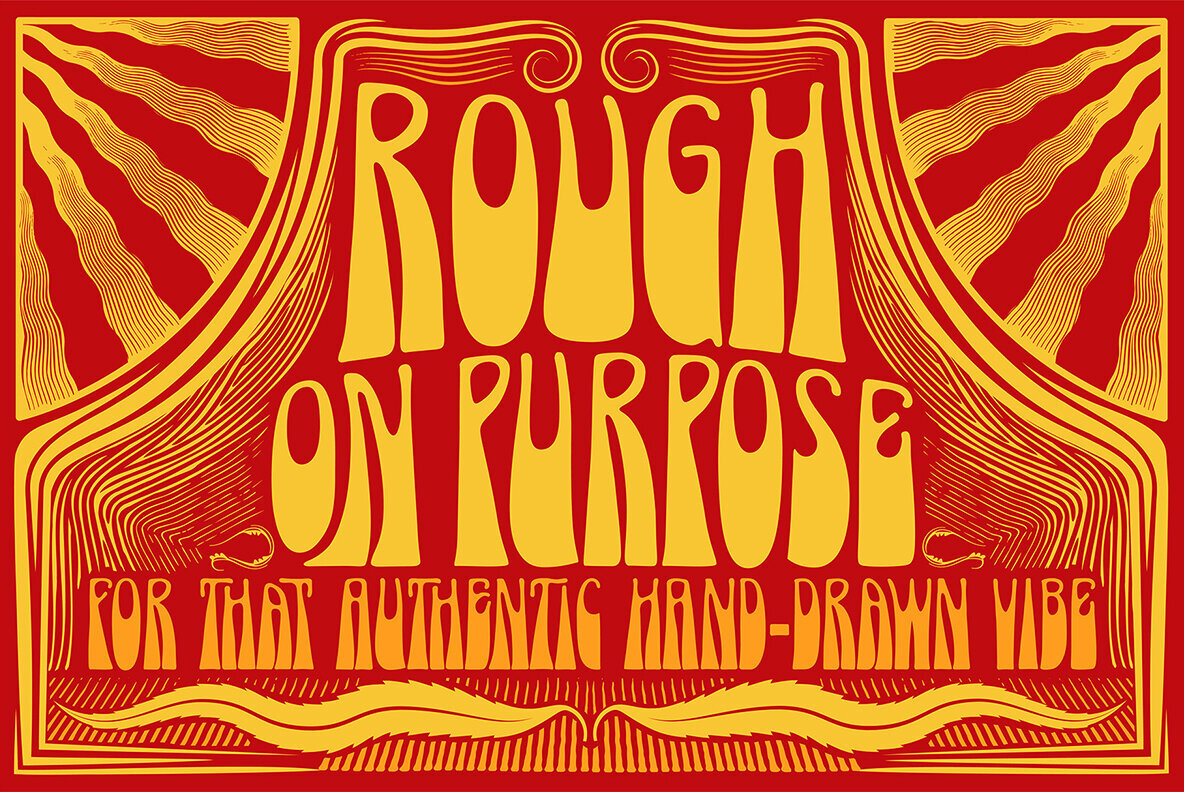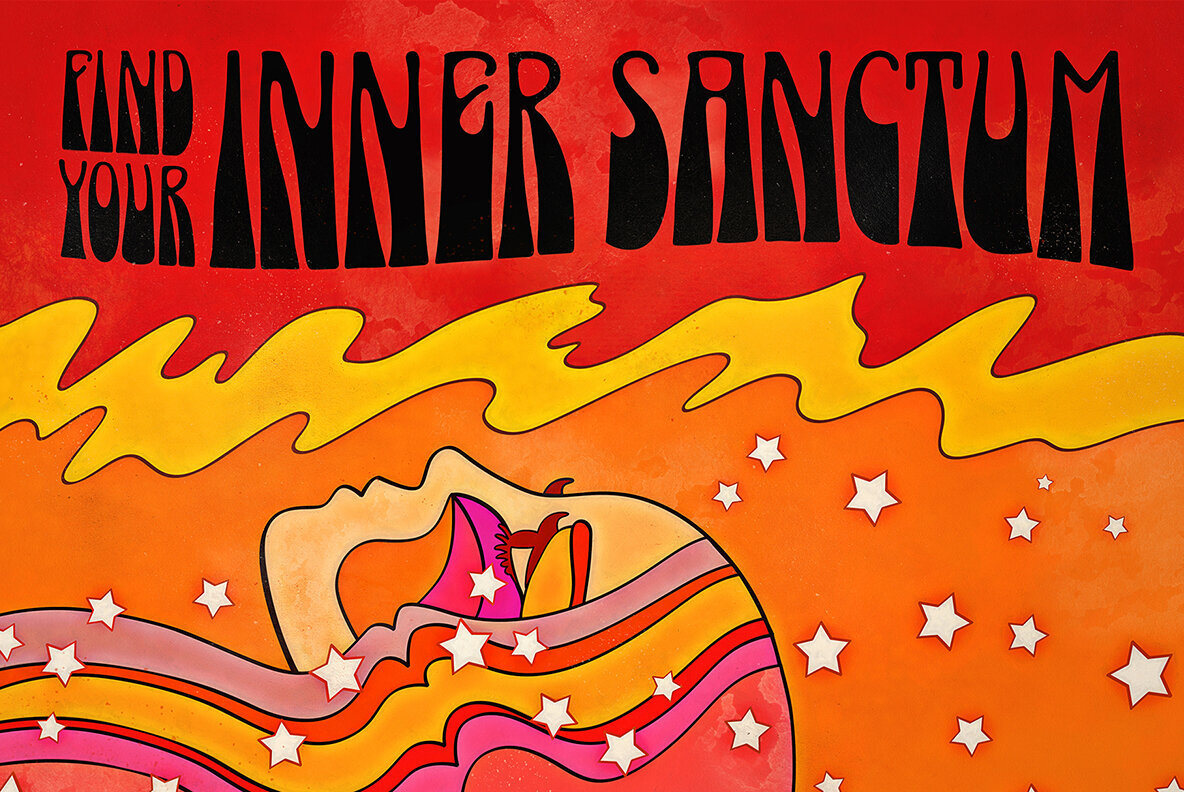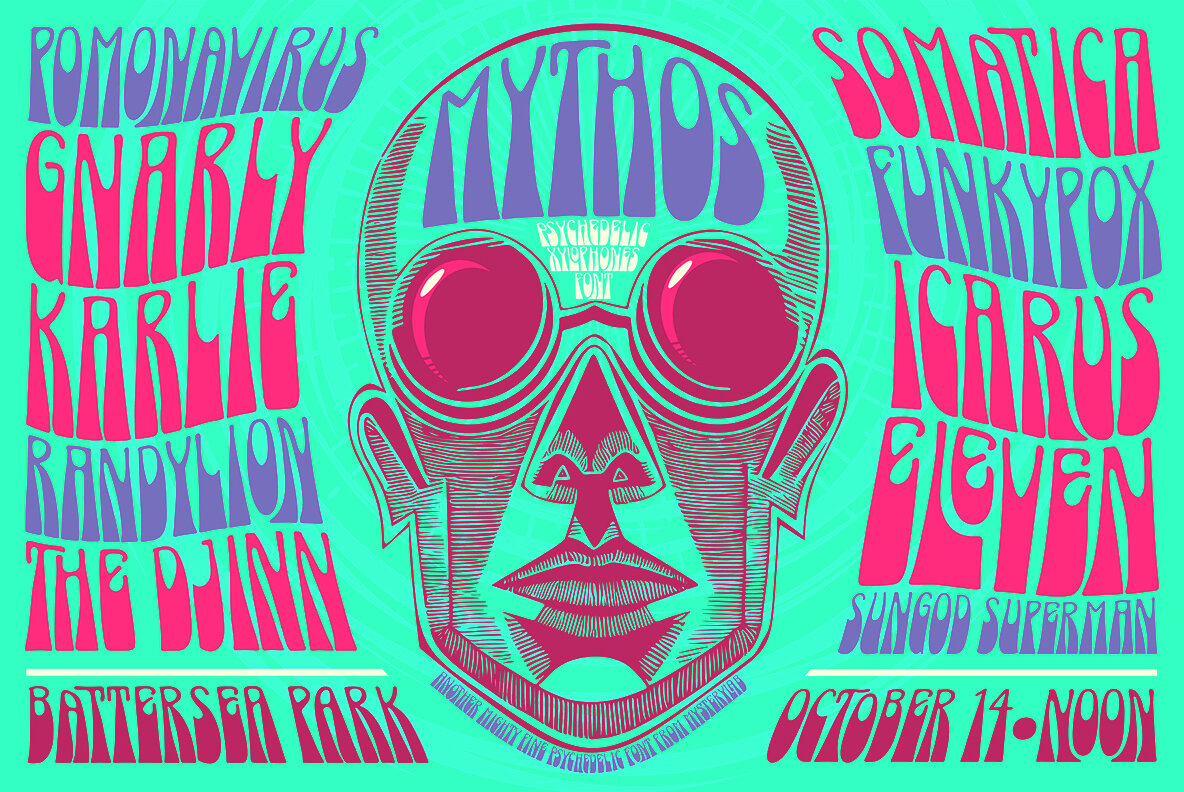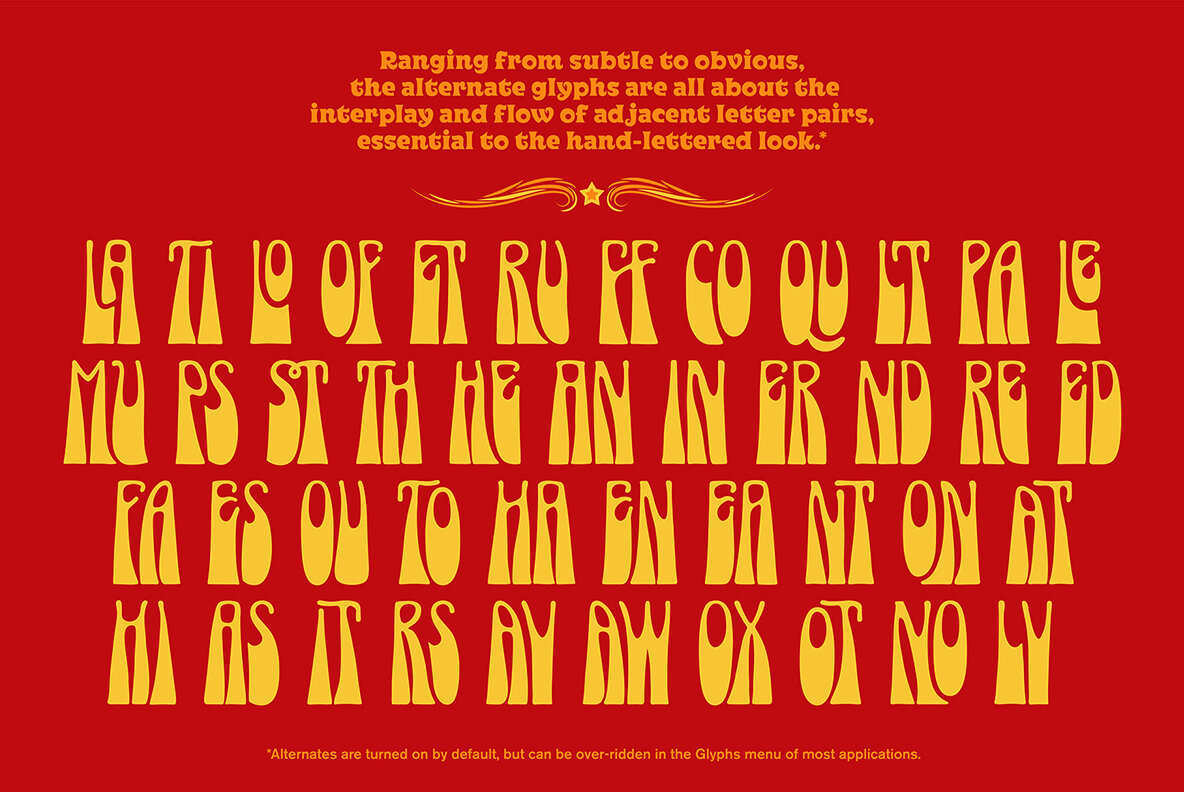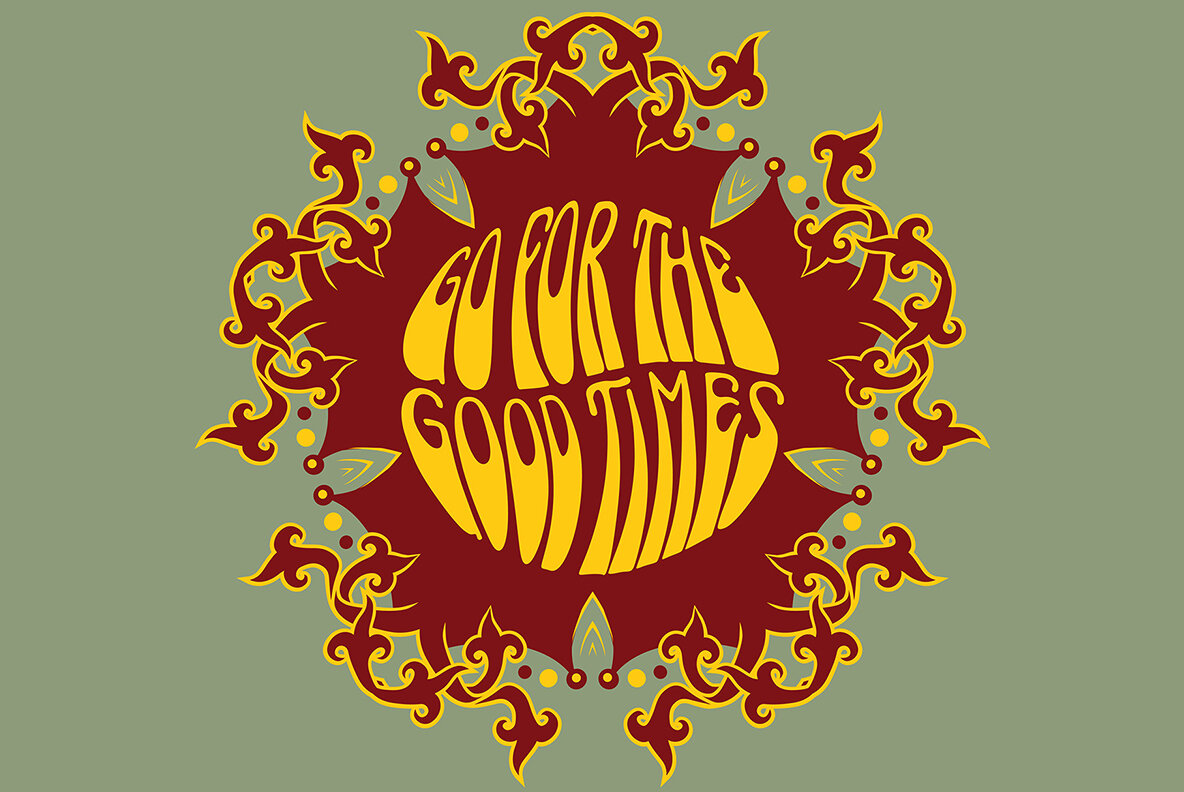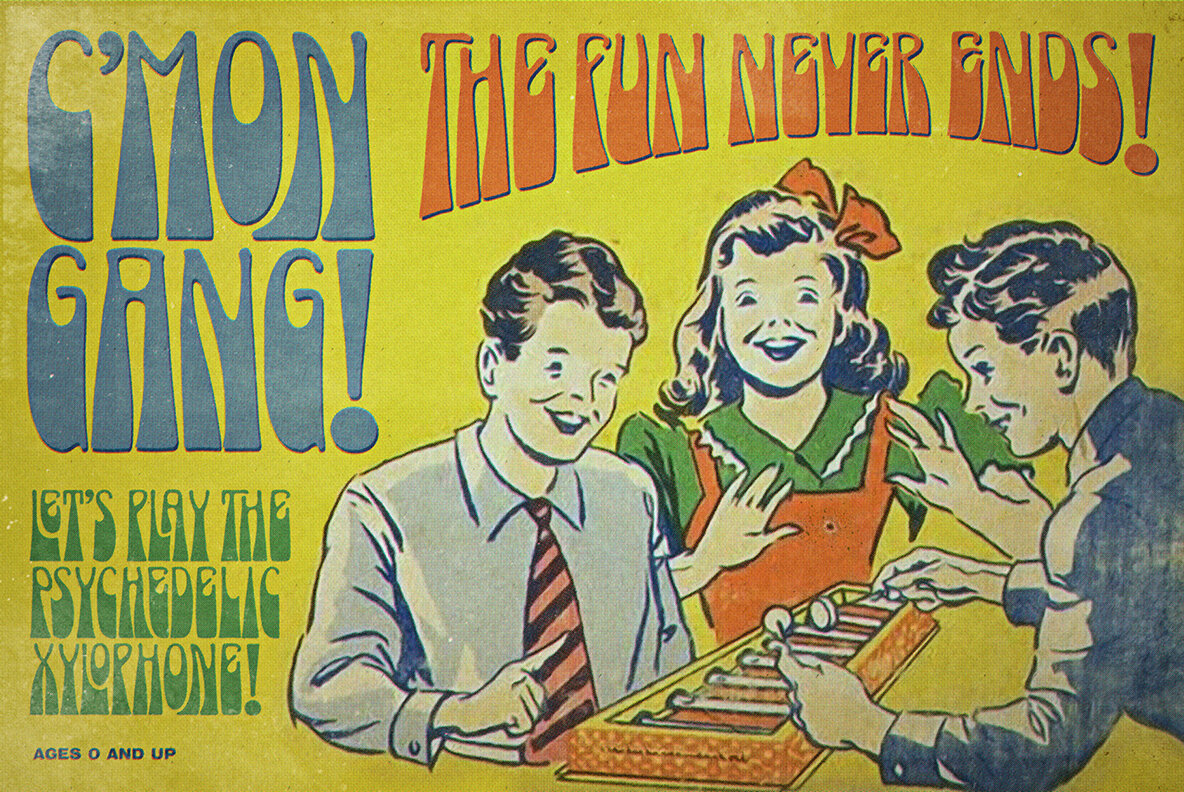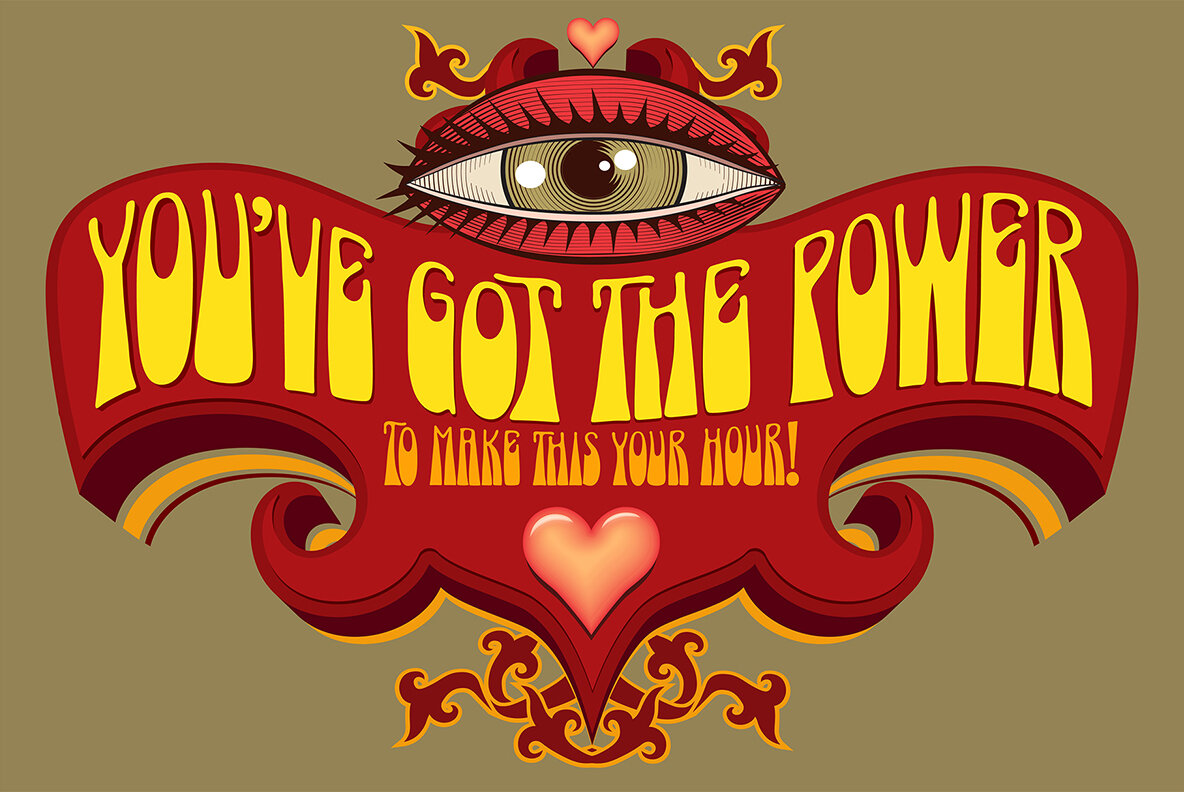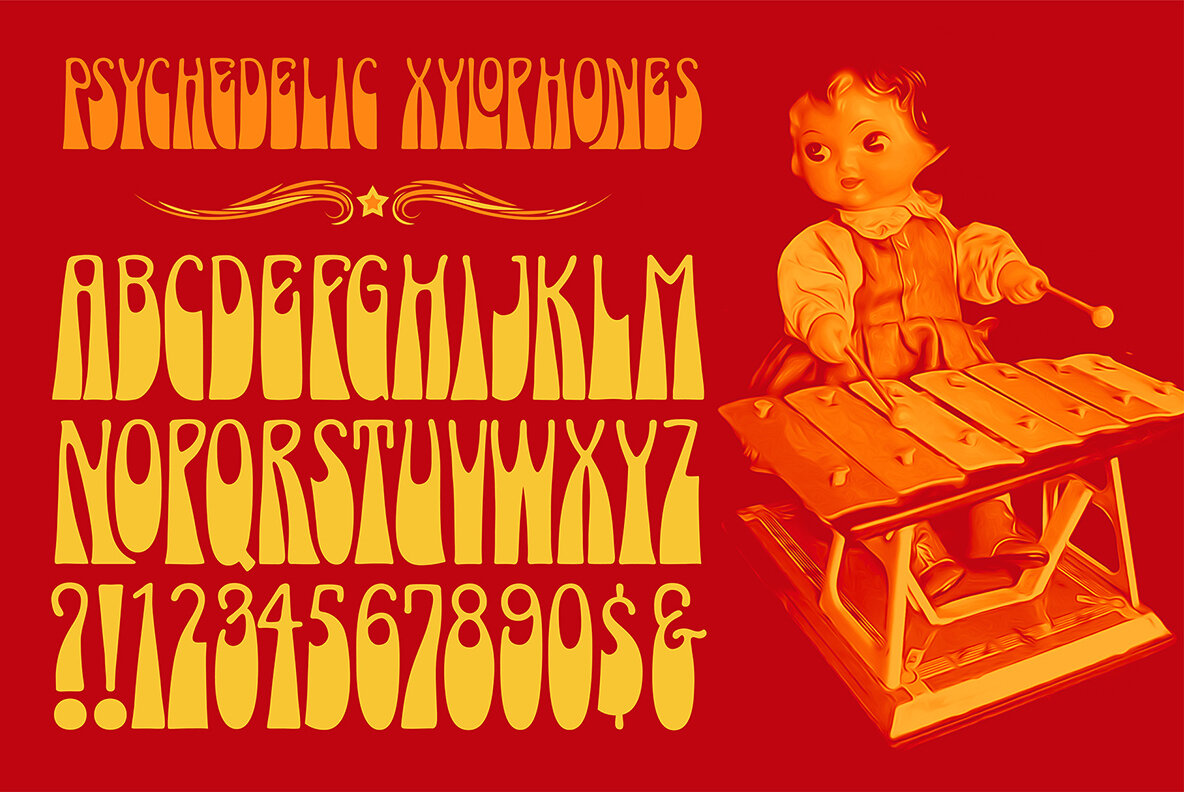
Psychedelic Xylophones Font
Psychedelic Xylophones Bold
Perfect in its imperfection, Psychedelic Xylophones is a retro trippy hippie font that brings a hand-lettered groove to your text graphics. It features a large complement of two-character alternate glyphs that adds a subtle sway and an ebb-and-flow that results in some customized surprises and other more subtle variations to your text. It's great for that bendy, melty, warped headline psychedelic poster thing. Try it on retro t-shirt messages and surf/skate graphics, or a daring branding choice for drink or snack packaging.